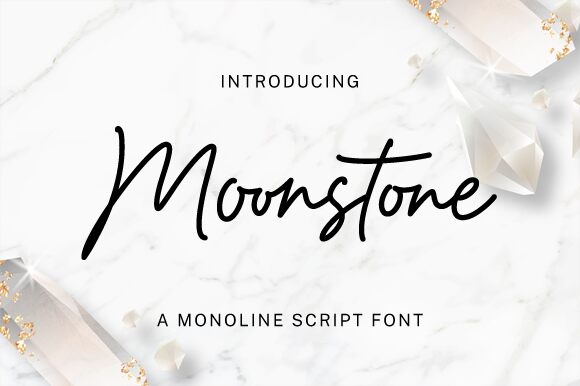
Moonstone
Dive into the elegant world of Moonstone, a monoline handwritten gem crafted by the artisans at Graphix Line Studio. With its light weight and fluid continuity, Moonstone embodies grace with every curve, making it an exquisite choice for a vast array of creative endeavors. Perfectly suited for fashion branding, where sophistication meets modernity, this font also shines in editorial designs that demand a personal touch.
Moonstone's well-balanced script whispers intimacy while exuding confidence; its smooth curves invite readers into a story told with both style and substance. Whether you're designing wedding invitations that speak to the heart or conceptualizing a boutique's logo that wraps luxury in simplicity, Moonstone brings your words to life with poise and finesse. Discover how this font can elevate your project to new aesthetic heights.